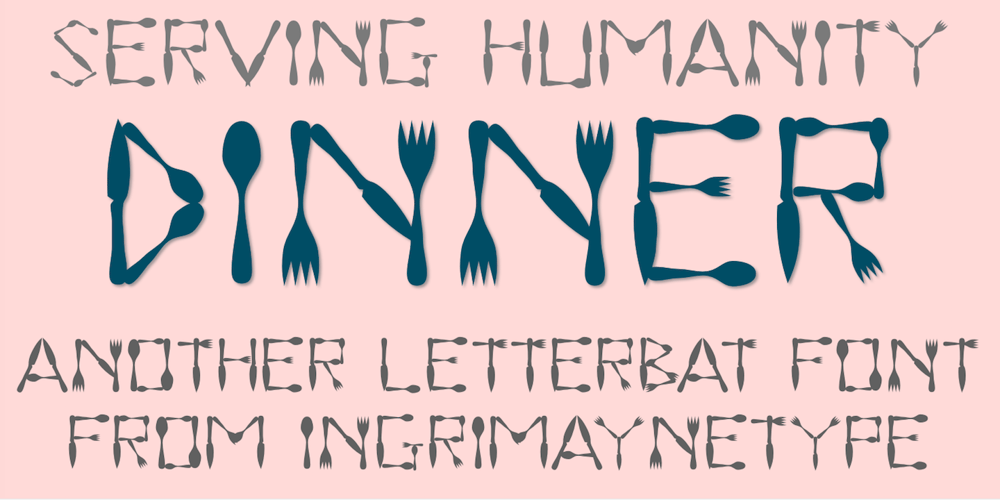
Dinner Font Family was designed by Robert Schenk and published by Ingrimayne Type. Dinner contains 4 styles and family package options. Dinner is a family of novelty fonts in which the characters are formed from spoons, forks, and knives. Dinner-Regular was designed in 1990, one of the earliest fonts in the IngrimayneType collection. It contains a mixture of knives, forks, and spoons and the lower-case letters are smaller versions of the upper-case letters. In 2021 the family was expanded with Dinner-Knives in which all characters are formed by arranging knife shapes, Dinner-Spoons in which the characters are formed from spoon shapes, and Dinner-Forks in which the characters are formed from fork shapes. All three are caps-only but the characters on the lower-case keys are alternate versions of upper-case letters . Dinner is a decorative display family that needs to be used at a large size. The logical place to use it is for food-related items.